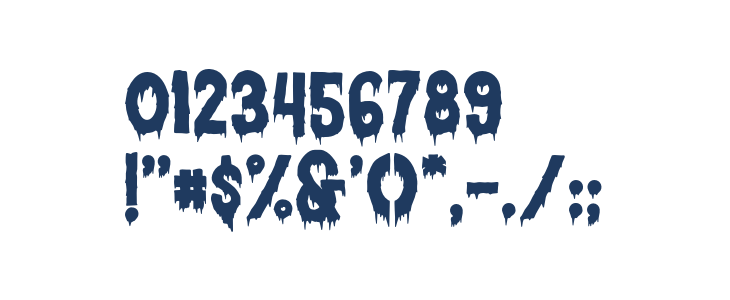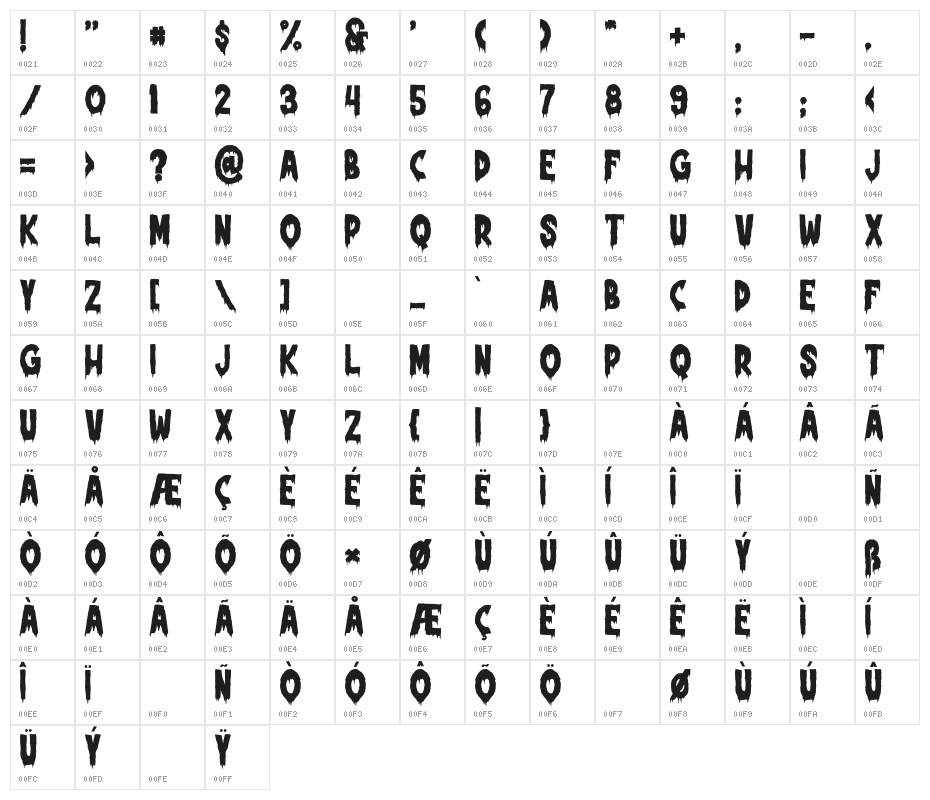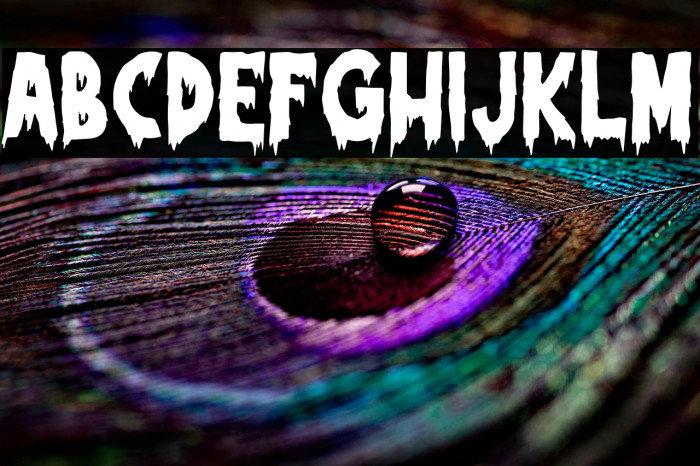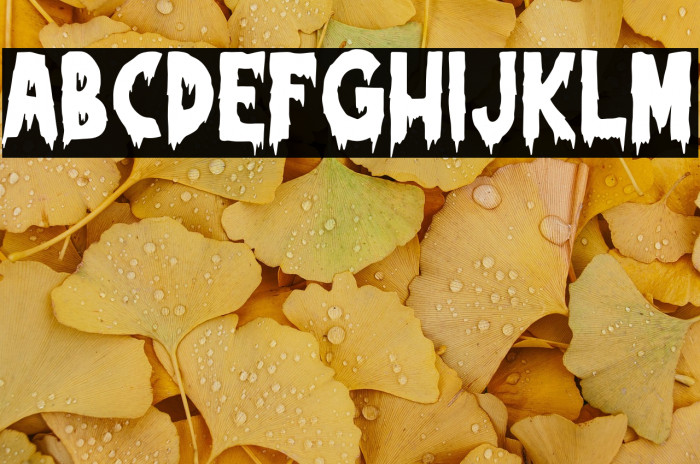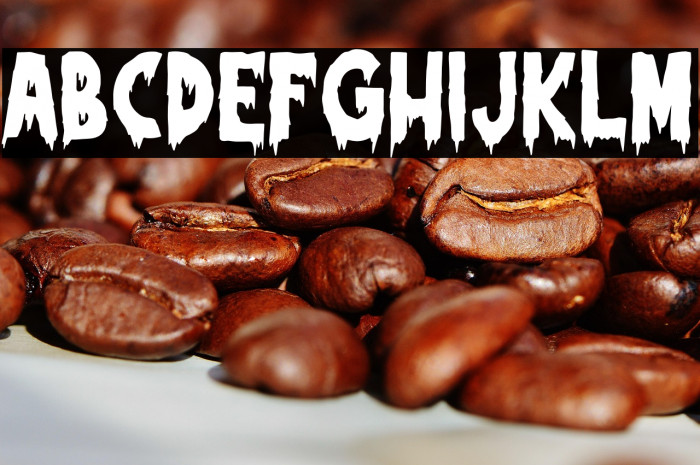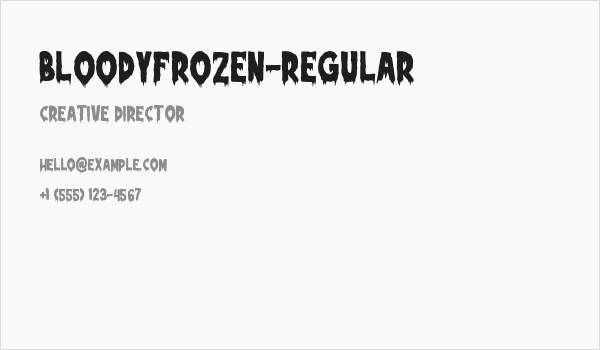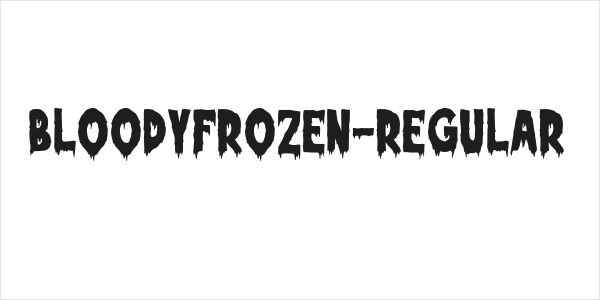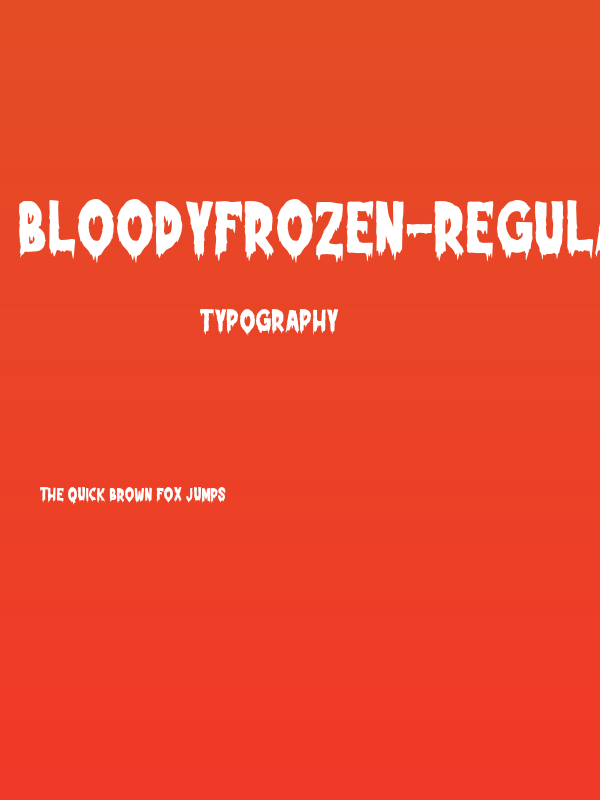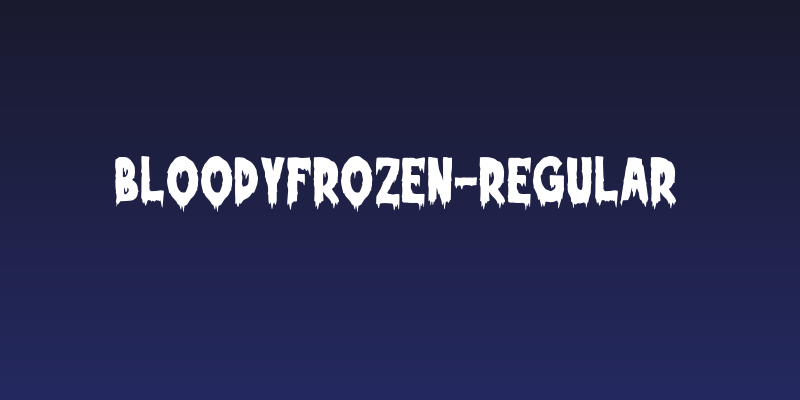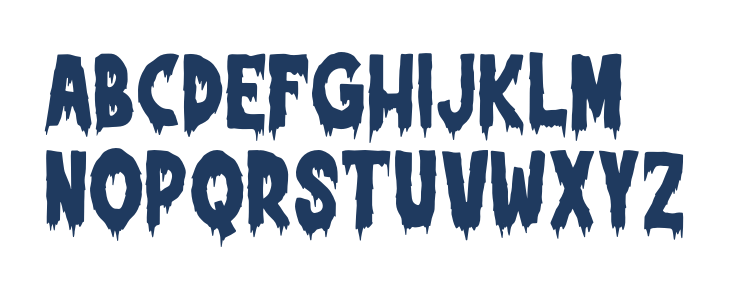
BloodyFrozen-Regular Font
BloodyFrozen-Regular Description
This font features a bold and dramatic style with a dripping effect that gives it a horror-themed appearance. The characters are thick and irregular, resembling letters that are melting or bleeding, which adds a sense of movement and chaos. The uppercase and lowercase letters maintain a consistent style, with jagged edges and uneven lines that enhance the eerie aesthetic. Numbers and special characters follow the same design, making the font cohesive and suitable for thematic projects.
| Proposed Projects | Ideal for Halloween posters, horror movie titles, haunted house flyers, and any project requiring a spooky, dramatic typeface. |